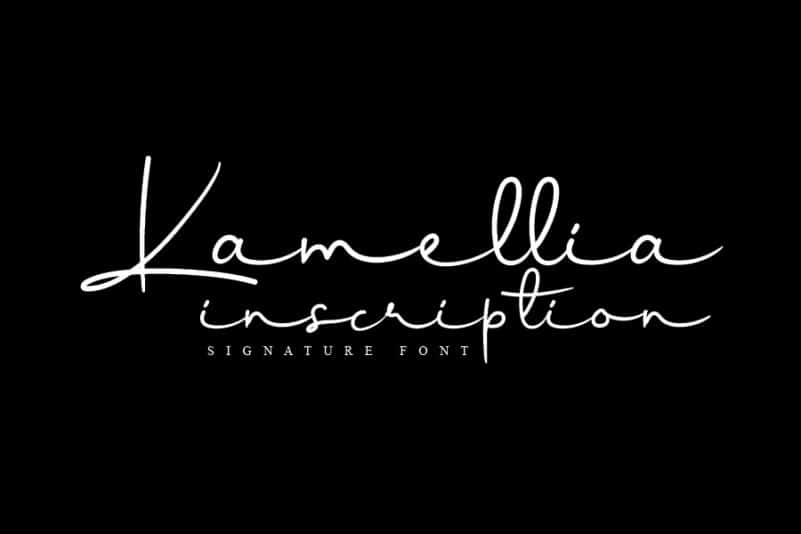
Kamellia Handwritten Font
Kamellia Handwritten Font is a delicate and flowing handwritten signature font. It looks stunning on wedding invitations, thank you cards, quotes, greeting cards, logos, business cards and every other design which needs a handwritten touch.